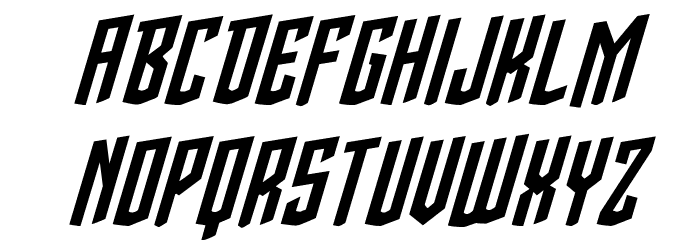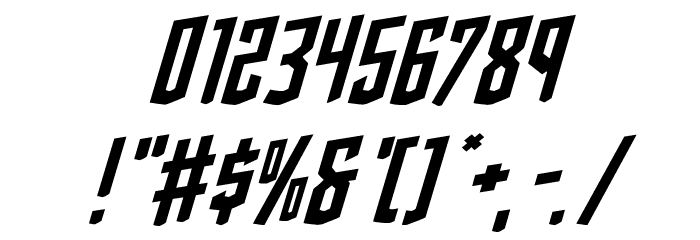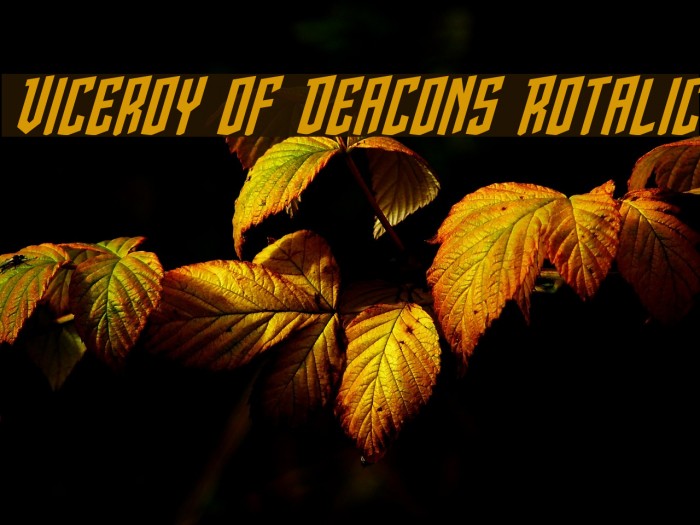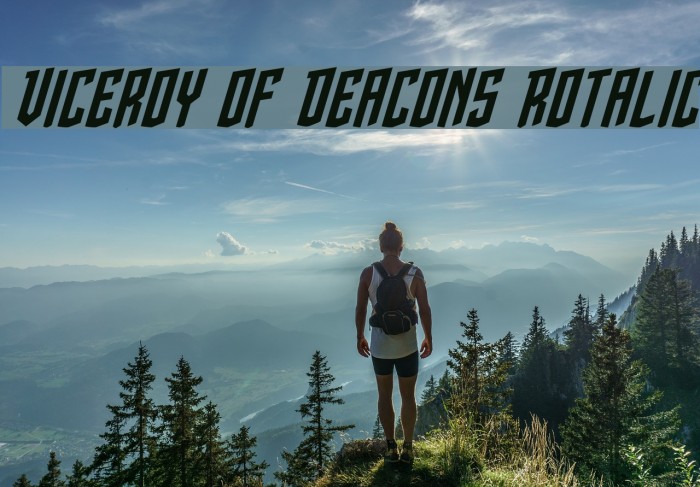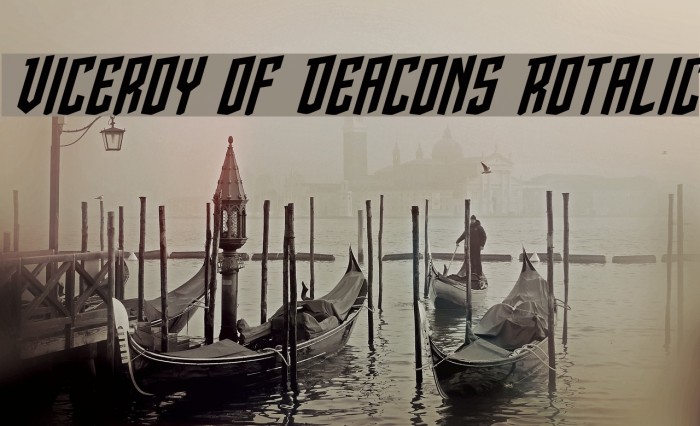
Viceroy of Deacons Rotalic Font
This font features a bold and dynamic design with a strong slant, giving it a sense of motion and energy. The characters are angular and sharp, with a distinct geometric influence that adds a modern and edgy feel. The uppercase and lowercase letters maintain a consistent style, while the numerals and special characters complement the overall aesthetic. The font's boldness and unique style make it ideal for attention-grabbing headlines and impactful designs.
A bold, angular font with a dynamic slant and modern geometric style.
- Proposed Projects: Perfect for sports branding, dynamic posters, video game titles, and edgy graphic designs.